Fool Me Once Font (Netflix)
The Fool Me Once font is linked to the Netflix thriller series adapted from Harlan Coben’s bestselling novel. Known for its twists, secrets, and suspenseful storytelling, the show uses a title design that reflects its mood: sharp, modern, and clean. The typography gives off a minimal yet unsettling energy, perfectly matching the dark atmosphere of the series. Although there is no official release of the Fool Me Once font, fans and designers often recreate the look with similar sans-serif fonts featuring strong lines, balanced spacing, and a contemporary style.
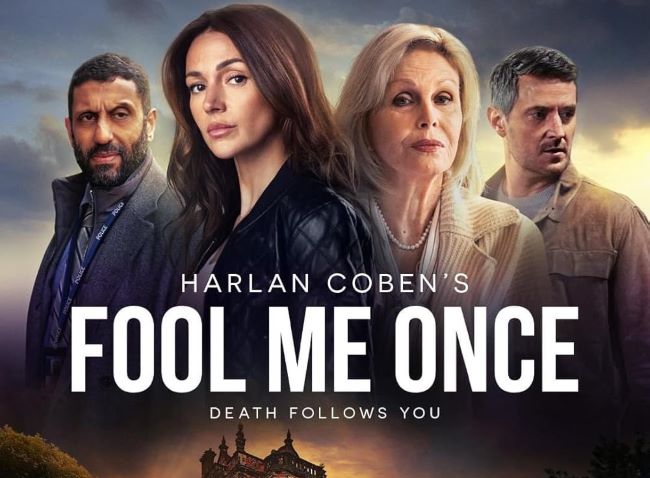
If you want to bring the same suspenseful and modern look of the Fool Me Once font into your own designs, these alternatives will help you achieve that professional Netflix-inspired aesthetic.
About Fool Me Once
Fool Me Once is a 2024 Netflix thriller miniseries based on Harlan Coben’s 2016 novel, created by Danny Brocklehurst. Starring Michelle Keegan as Maya Stern, a former soldier who sees her murdered husband alive on her nanny cam, the series unravels a web of conspiracy, betrayal, and hidden truths. Directed by David Moore and Nimer Rashed, the eight-episode series became a global hit for Netflix, combining psychological suspense with Coben’s signature plot twists and family secrets.